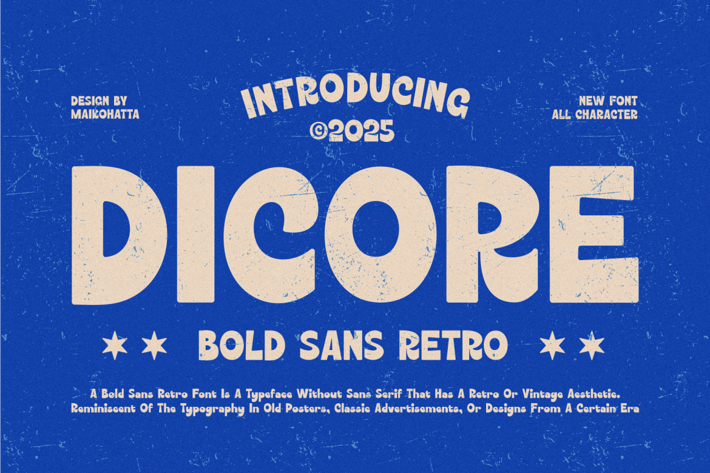
Dicore - Bold Sans retro Font
Introducing our new product Dicore - Bold Sans retro Font
This font is characterized by reflecting joy, cheerfulness and a light atmosphere with a handwritten style often found in comics or cartoons.
This font is perfect for projects that want to highlight elements of playfulness and fun, such as poster designs, invitation cards, comics, or promotional materials aimed at a younger audience or those looking for a fun feel.